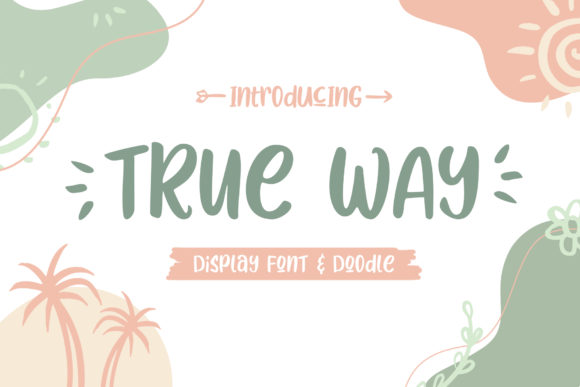
Unleash the Exuberance of Expression with True Way Font: The Gateway to Unforgettable Creations
In a world of monotonous digital expression, True Way Font emerges as a beacon of creativity, inviting you to infuse your designs with a dash of delight and a sprinkle of whimsical charm. This captivating display font, meticulously crafted by the creative minds at Fontherapy, is not just a collection of letters; it's a passport to a realm where imagination knows no bounds.
True Way Font is a symphony of curves and angles, a harmonious blend of playful strokes and elegant lines. Its distinct character dances across your screen, captivating your audience with its infectious energy. Say goodbye to mundane typography and embrace a font that sparks joy, igniting a flame of inspiration in the hearts of your viewers.
With True Way Font as your creative companion, you'll find yourself gravitating towards projects that ignite your passion. Whether you're crafting captivating logos, designing eye-catching posters, or weaving enchanting invitations, this font becomes your magic wand, transforming ordinary words into enchanting spells.
Step into a Realm of Endless Possibilities
True Way Font's versatility extends far beyond the realm of business websites. Its exuberant nature lends itself effortlessly to a myriad of creative endeavors. Let your imagination soar as you explore its potential in personal branding, social media graphics, product packaging, and even children's book illustrations. True Way Font is a font that adapts, transforms, and captivates, becoming an integral part of your storytelling arsenal.
The True Way Font Advantage: A Font That Delivers
In a sea of fonts, True Way Font distinguishes itself with an array of features that make it a must-have in your design toolbox:
- A Unique Voice: True Way Font possesses a distinctive personality, setting your creations apart from the masses.
- Endless Creativity: Its boundless versatility empowers you to tackle any design challenge with confidence.
- Unmatched Legibility: True Way Font ensures your message shines through, even in intricate designs.
- Effortless Customization: With a comprehensive range of glyphs and swashes, you can tailor the font to match your unique vision.
Elevate Your Designs to New Heights
With True Way Font by your side, you'll discover a newfound passion for design. Its infectious energy will seep into your creative process, inspiring you to push boundaries and create designs that leave an unforgettable impression. Join the ranks of those who have embraced the magic of True Way Font and witnessed the transformation of their designs into captivating works of art.